About the Bundle Styles Font
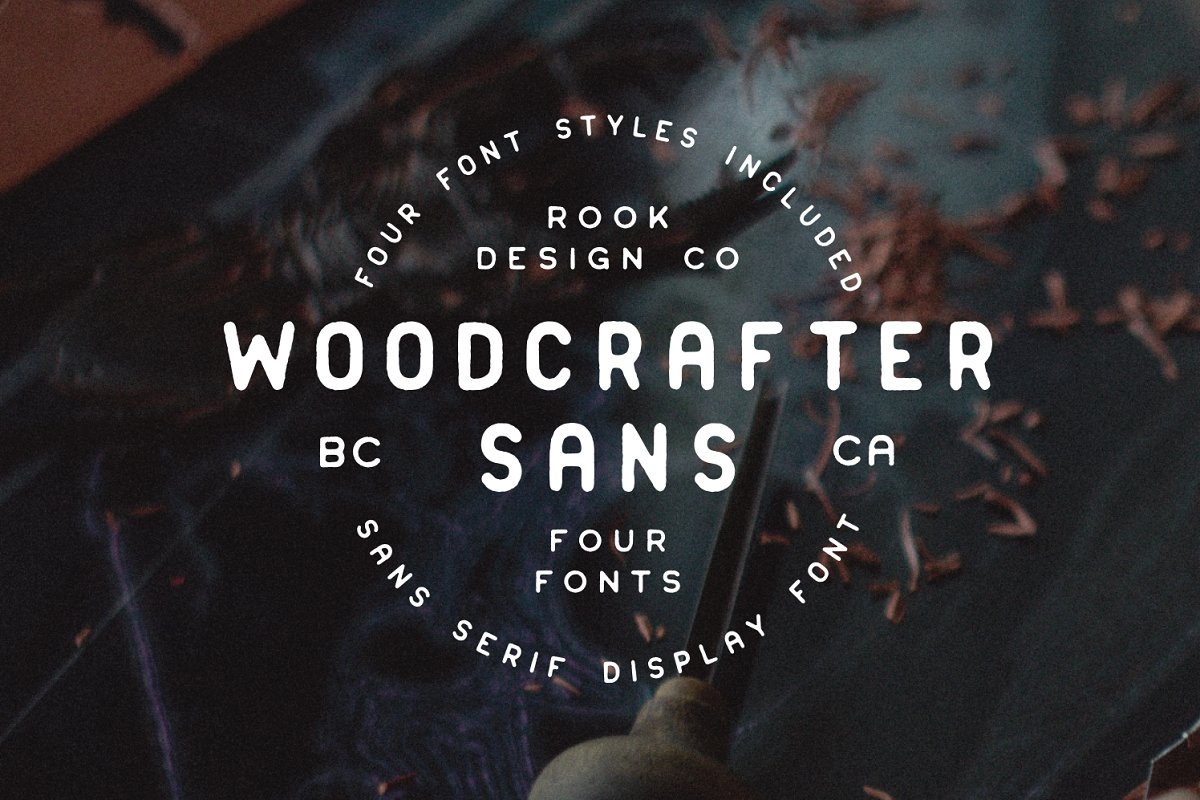
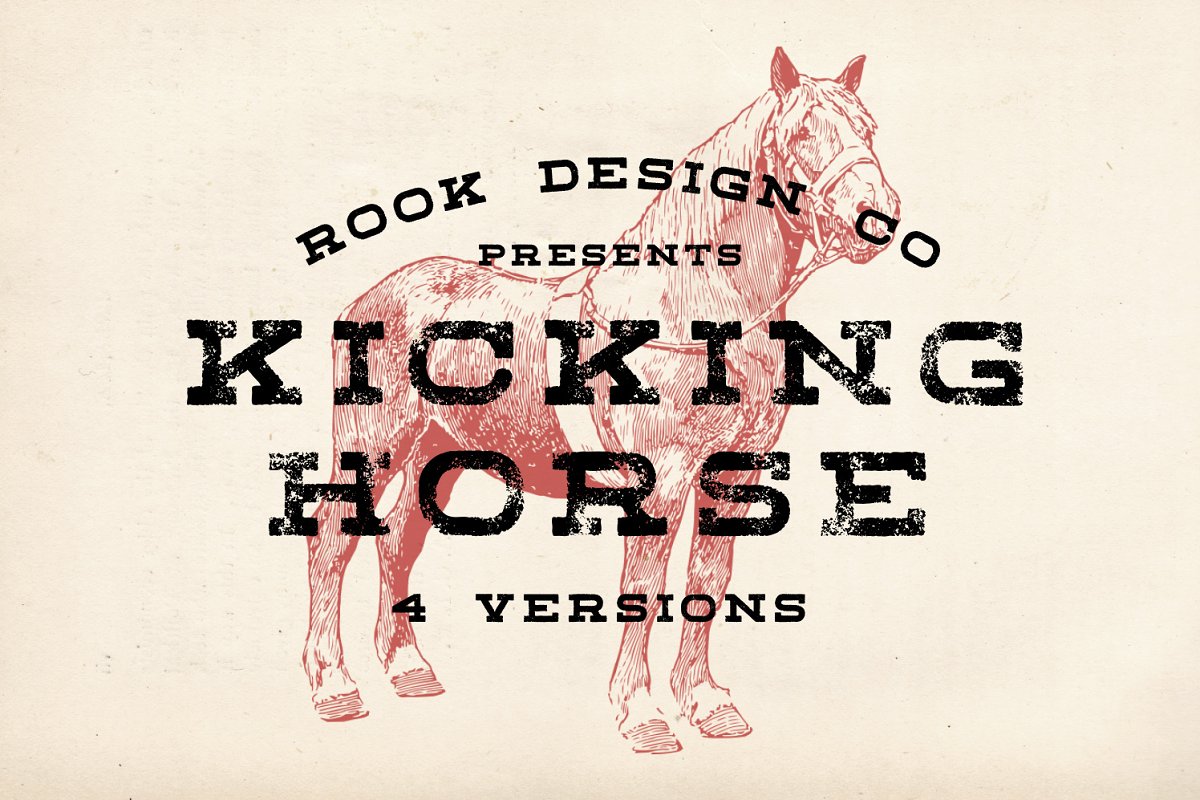
If you like even just one of these fonts, you get the other 3 font families for only a couple dollars more, This bundle was designed give you maximum versatility with your text needs, These fonts range from extra wide (Kicking Horse) to extra condensed (Woodcraft Sans Extra Condensed)
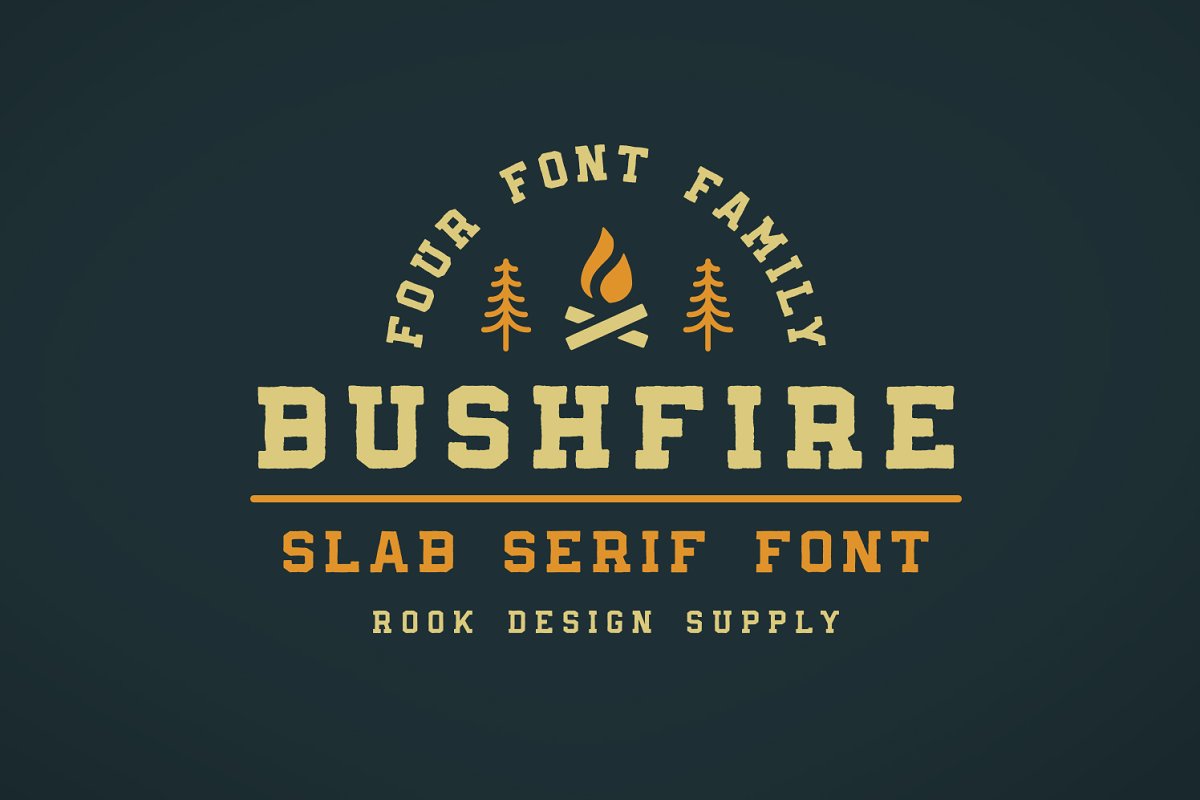
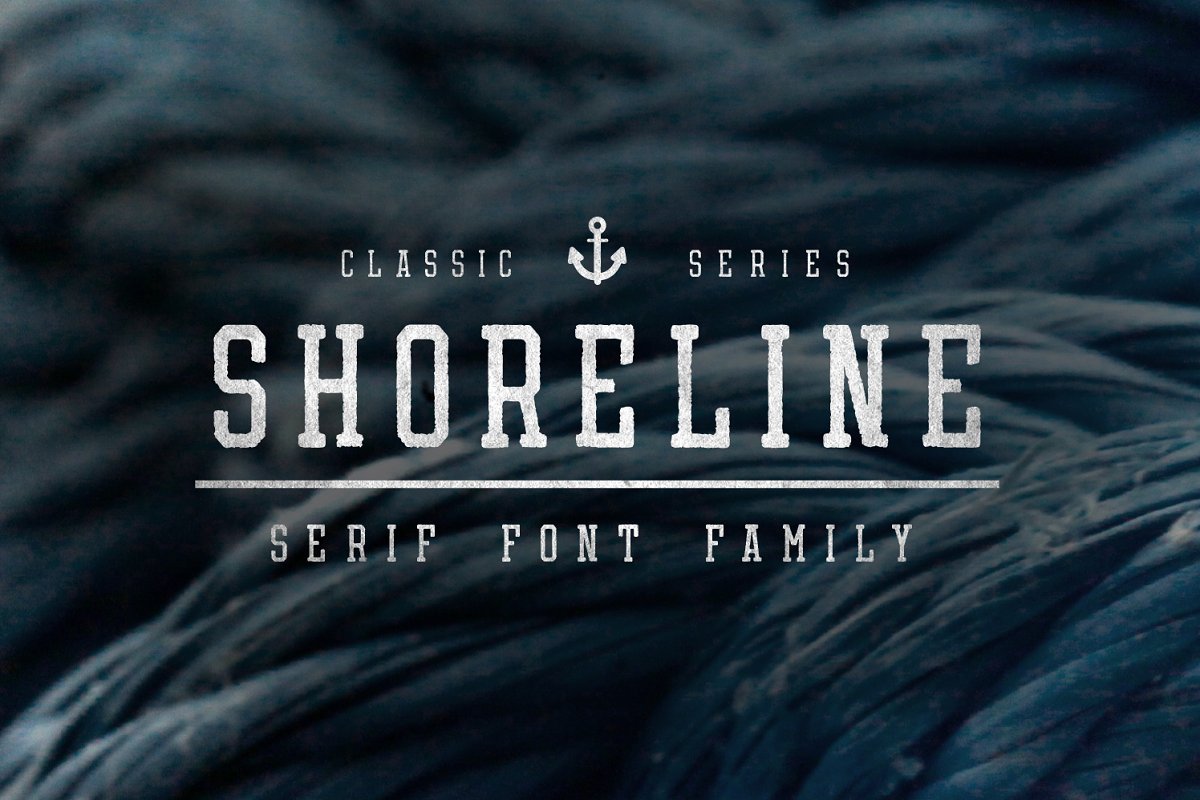
The included fonts:Bushfirehttps://creativemarket, com/helloimgreg/1359250Bushfire is a slab serif font with a little bit of grit, and an outdoorsy vibe, Bushfire comes in 4 versions: regular, bold, condensed and condensed bold, Kicking Horsehttps://creativemarket
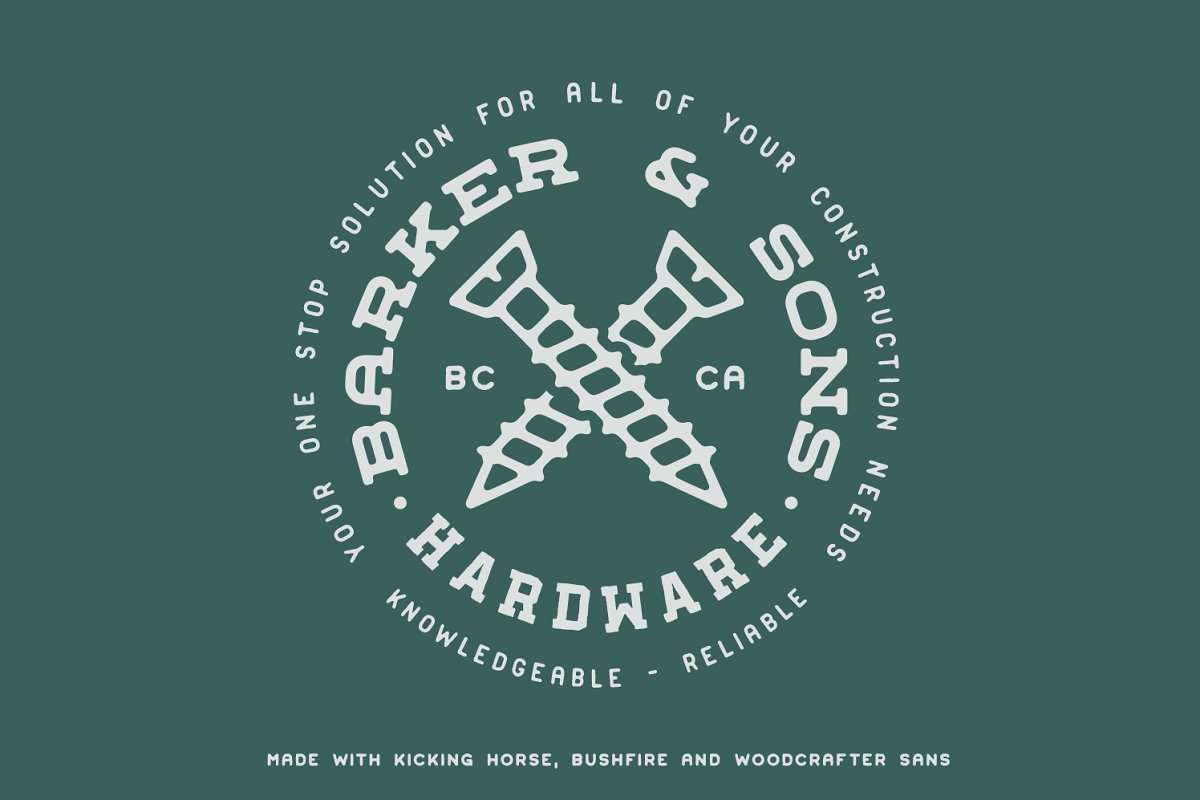
com/helloimgreg/1336046This font has vintage printing effects and an old western vibe, Looking for rounded edges? Maybe some grit or some grunge? We got you covered!Woodcrafter Sanshttps://creativemarket, com/helloimgreg/1351417Woodcrafter has a handmade feel to it
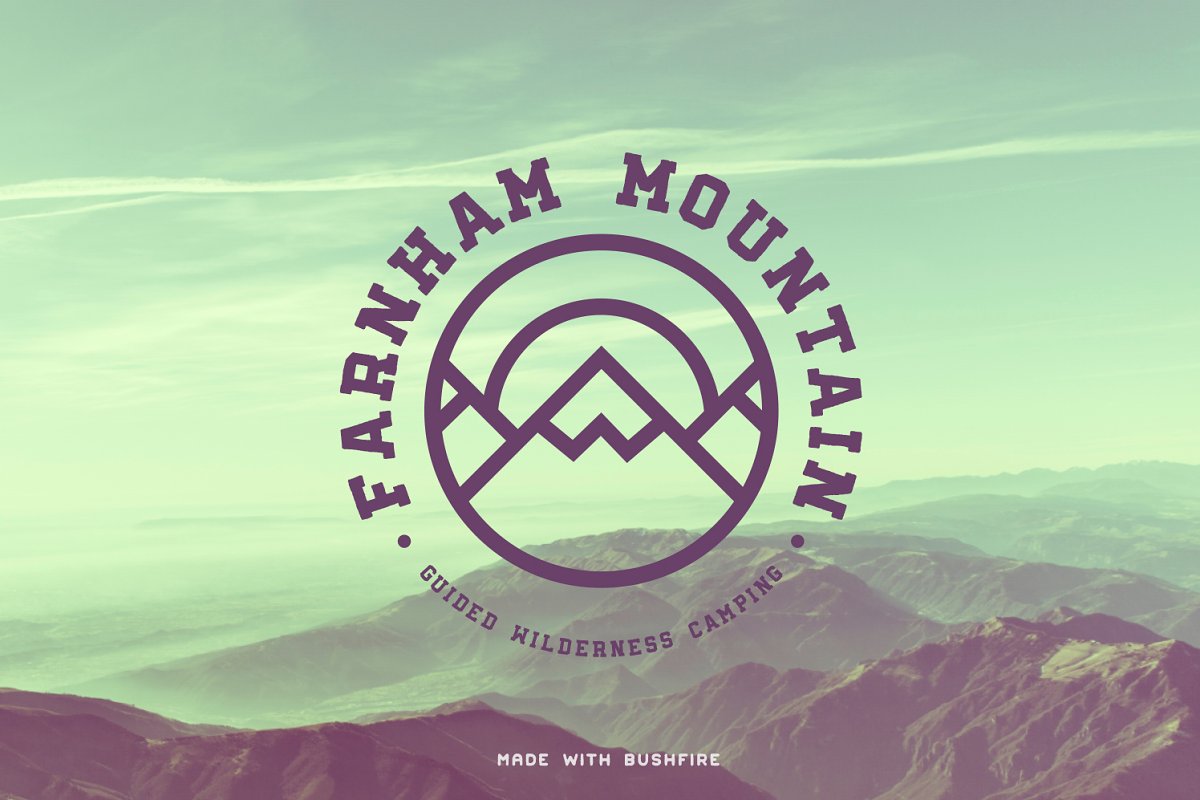
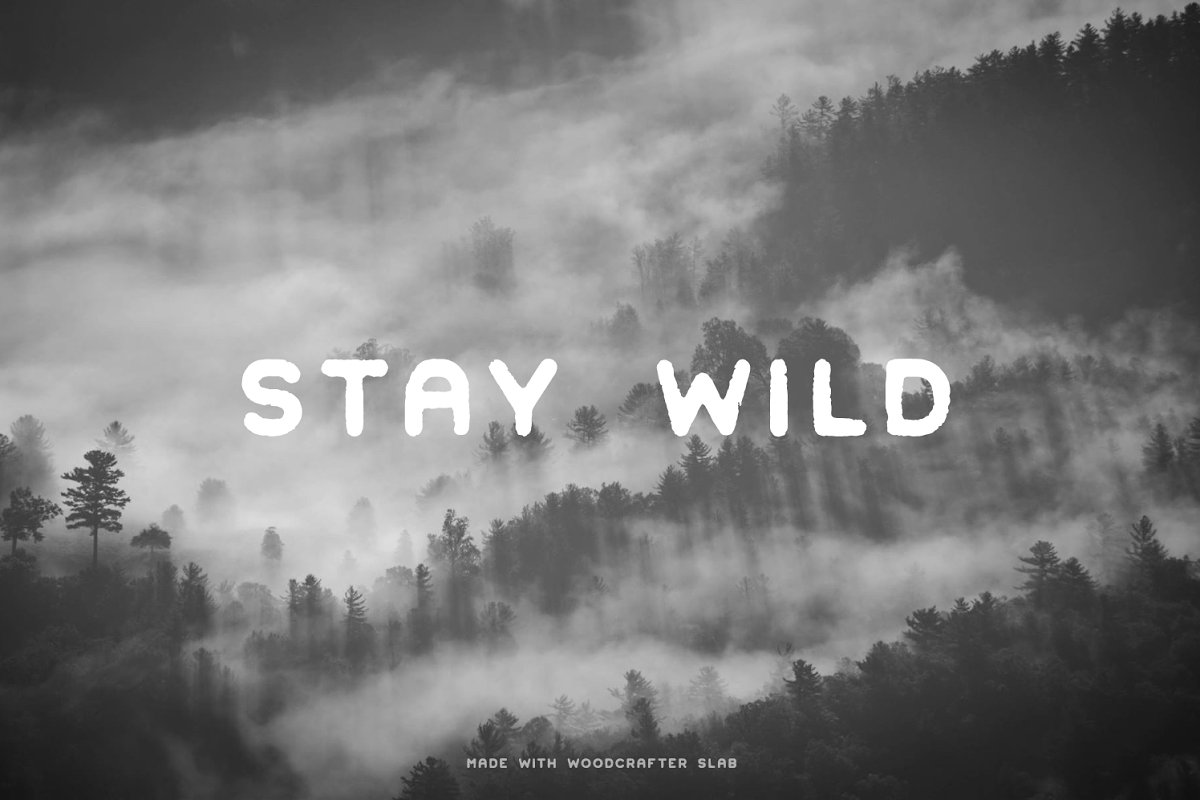
The corners are rounded, a little bit of grit and imperfections were added in, and the results couldn’t be better! It’s fantastic paired up with other fonts, and it’s great on its own, Woodcrafter Sans is available in Regular, Bold, Condensed and Extra Condensed
ShorelineUsually serif fonts have a very contemporary feel to it, but we were having none of that! We added some grit and overprinting and made a classic with a modern twist, Shoreline comes in both regular and bold, Language Support – Every font has a ton of extra characters added in to support many different languages